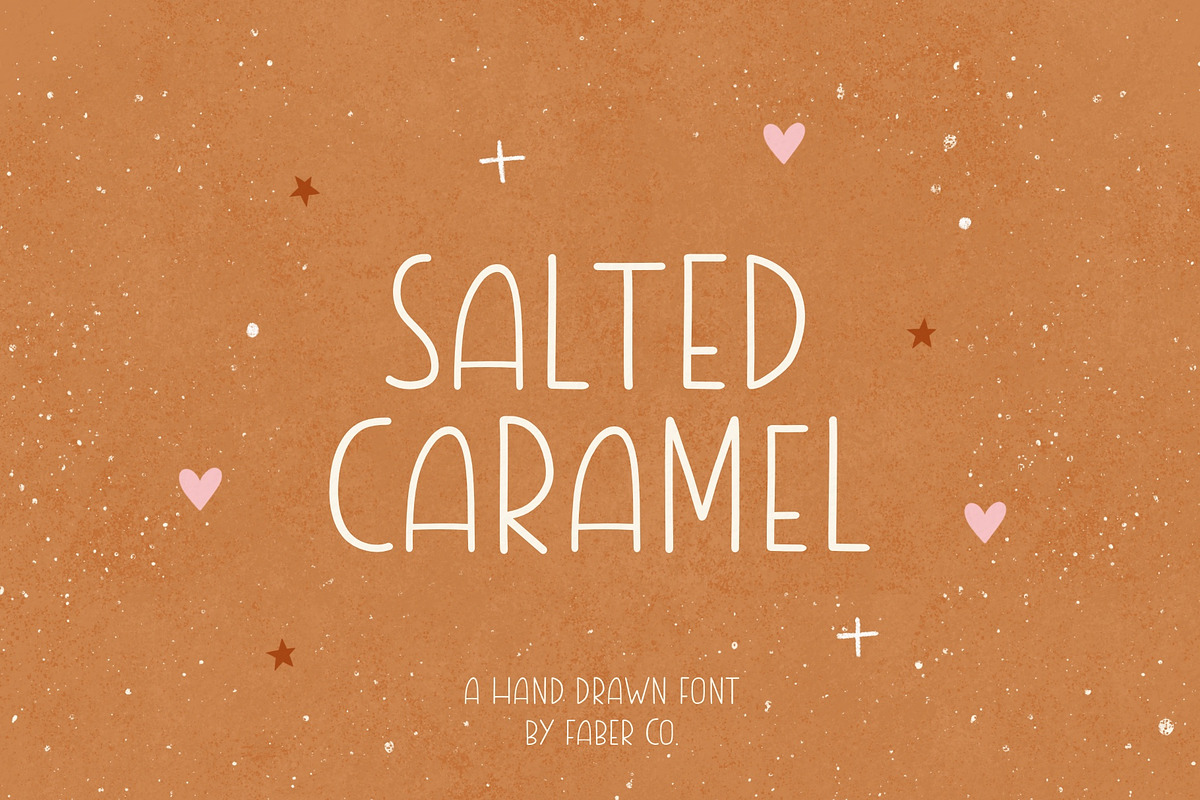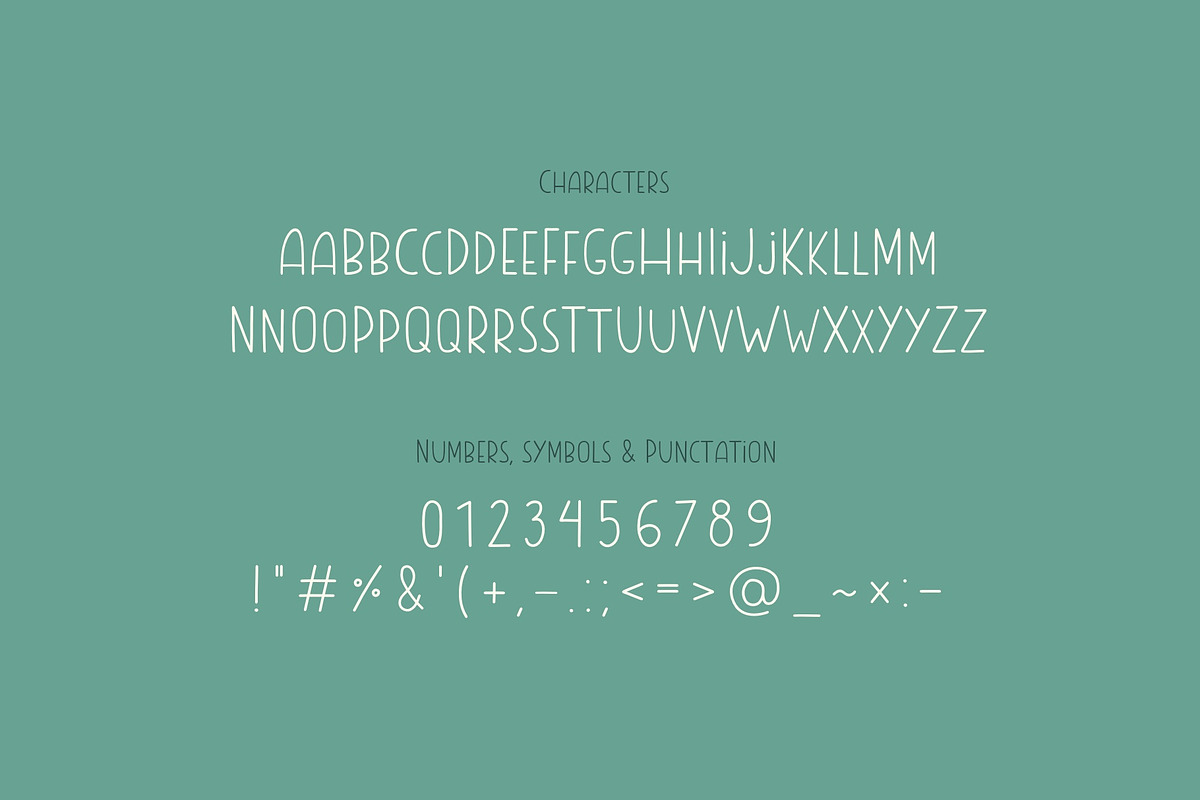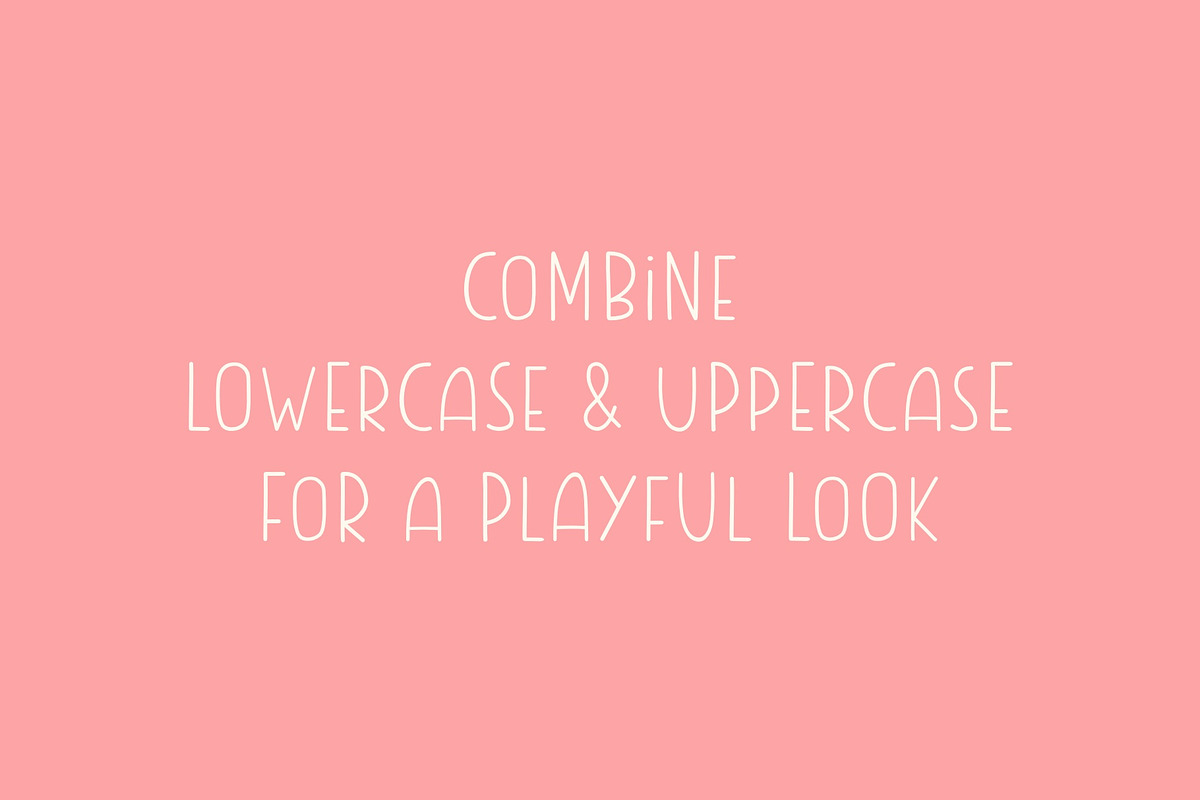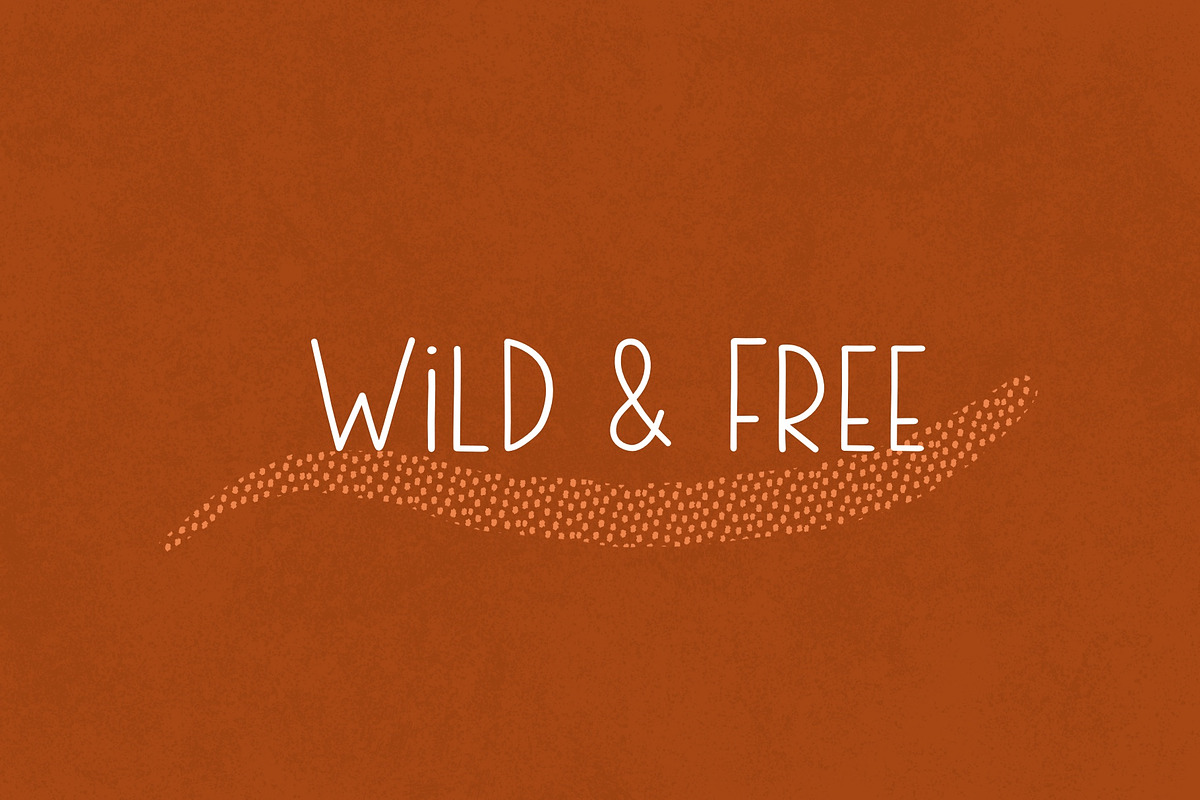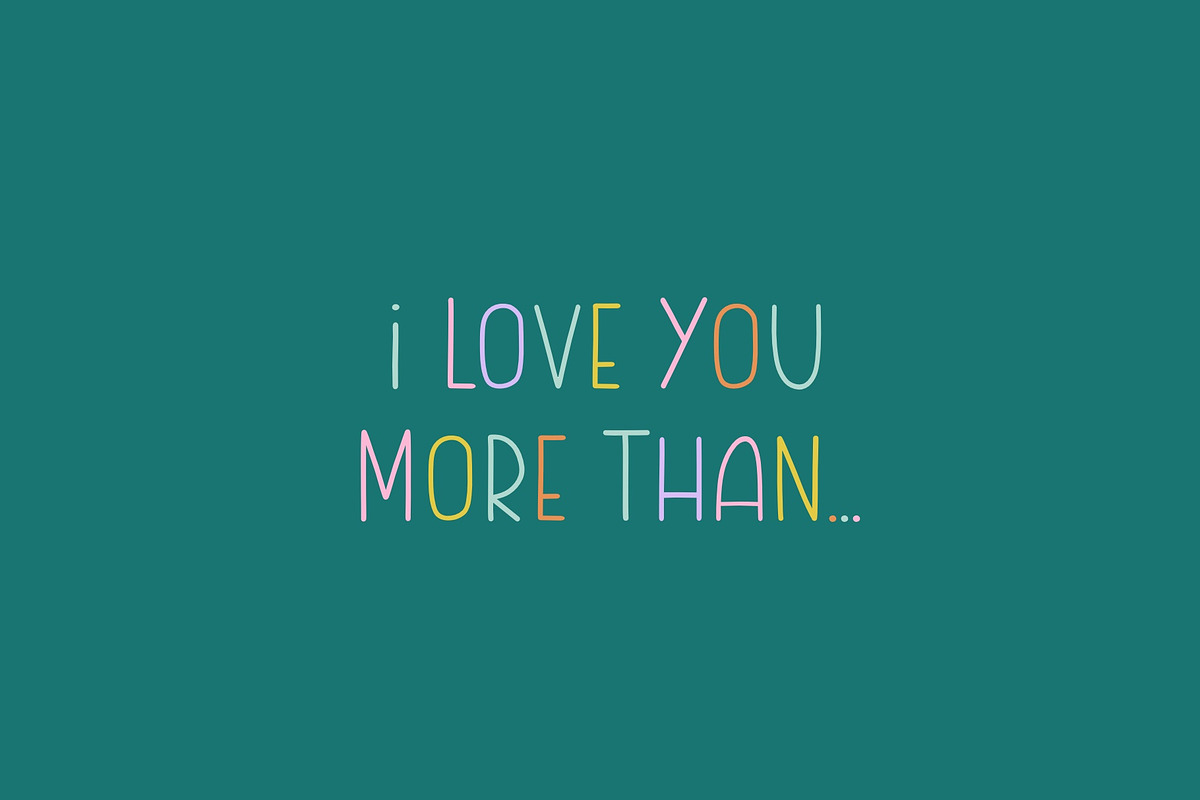
Salted Caramel | Handwritten Font
SALTED CARAMEL is a skinny, cute and playful font in a hand-drawn style. It’s perfect to add a personal and playful touch to your illustrations, greeting cards, packaging, quotes, and much more.
This is a font with uppercase and lowercase characters, punctuation, and symbols.